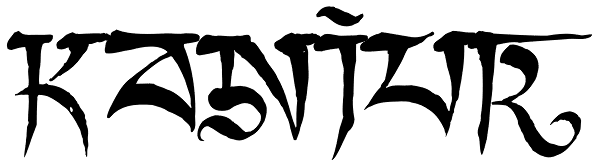
Kanjur
Kanjur was inspired by a page from an 18th century Buddhist book. Used for block text at first glance it has a very striking resemblance to Asian lettering. It is an English reading caps only font with minimal characters ( A-Z 0-9...